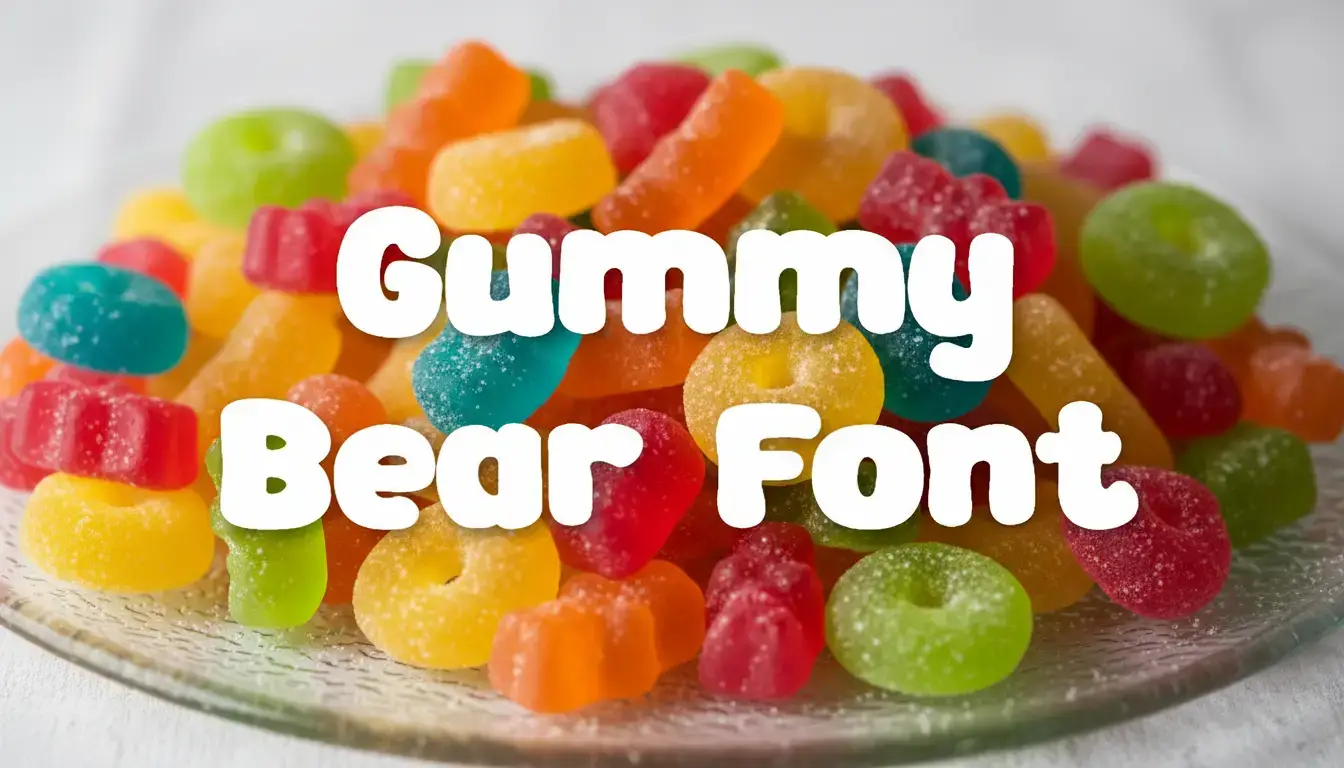
Gummy Bear Font
Gummy Bear
Gummy Bear is a fancy font designed by PINISIART Team and published by PINISIART. It's a decorative display font with plenty of personality, made to grab attention. It's a free download, and you can try it with your own text in the preview above first.
What You Can Type With Gummy Bear
Gummy Bear covers the full alphabet in upper and lowercase, plus all ten numbers, so you can set names, dates and prices without switching fonts. Common punctuation such as &, !, ? and @ is included as well. It also has the accented letters you need for Spanish, French, Portuguese and Italian.
Where Gummy Bear Works Best
Gummy Bear is a natural fit for posters, logos and eye-catching headlines. Use it for one standout word or headline and let simpler fonts handle the rest.
Does Gummy Bear support accented letters?
Yes. Gummy Bear includes the accented letters needed for Spanish, French, Portuguese and Italian, so it works for more than just English.